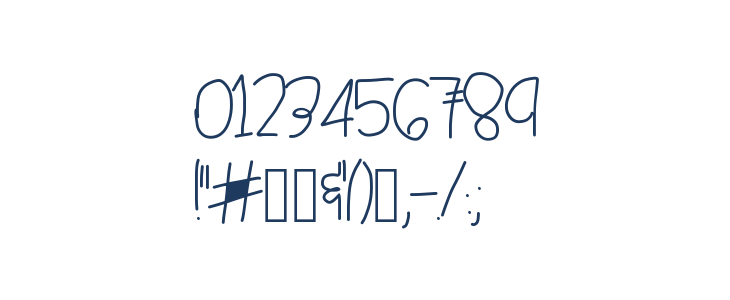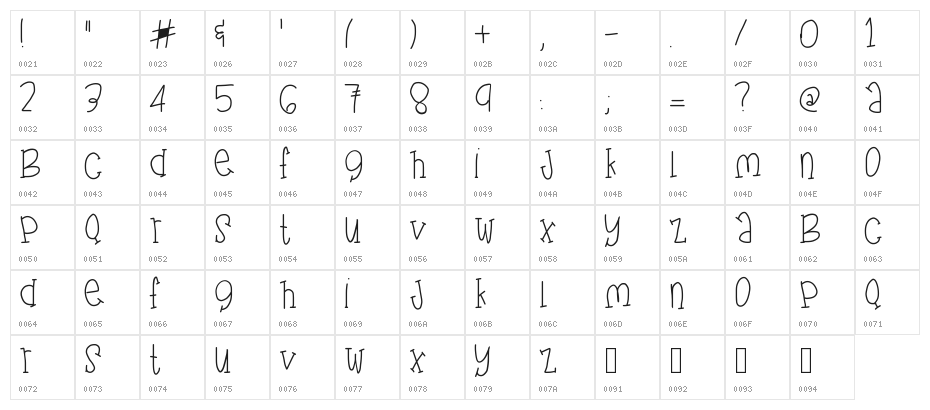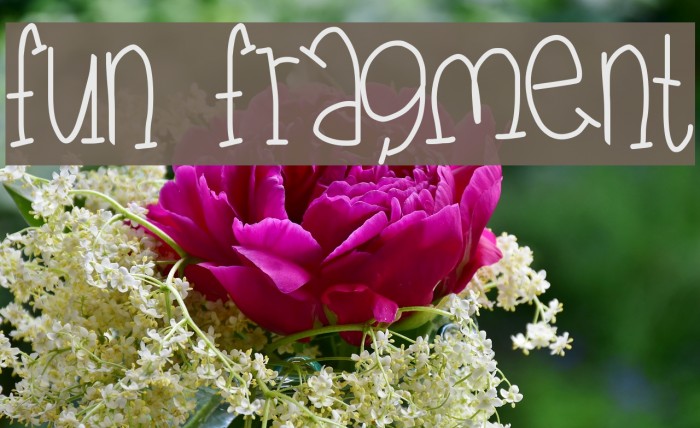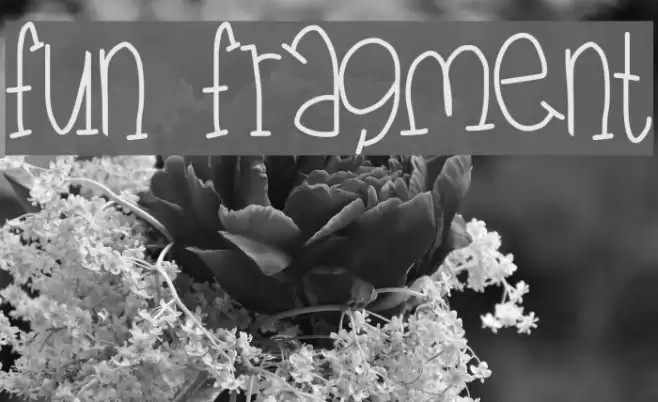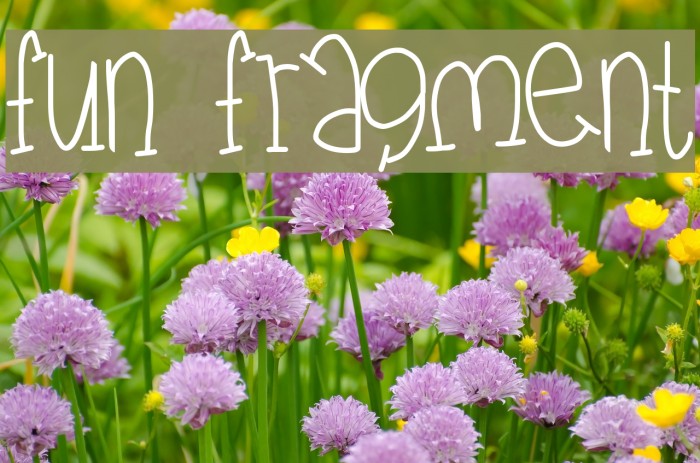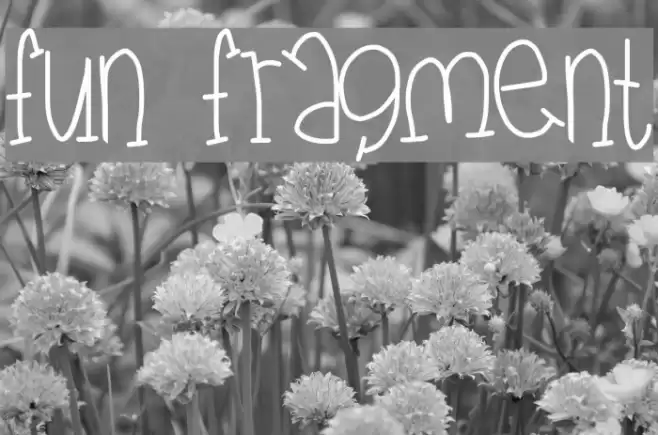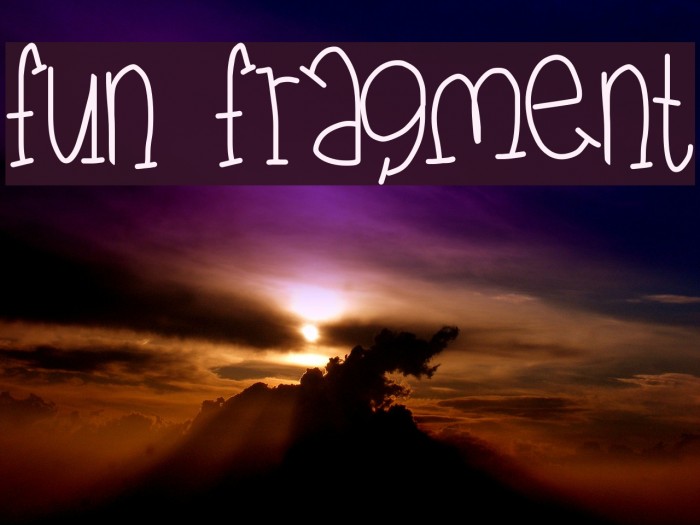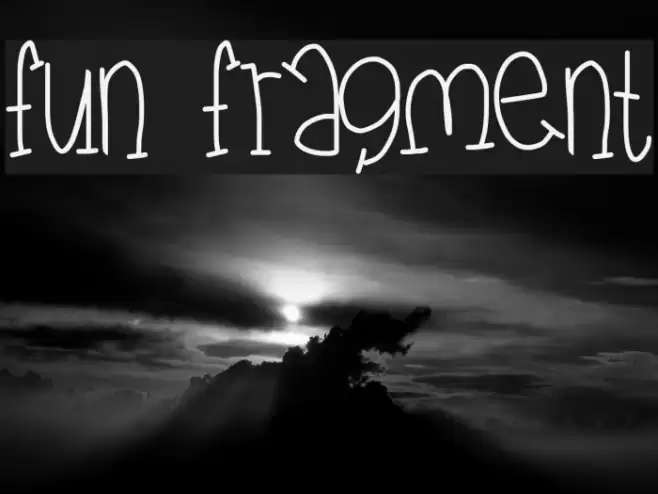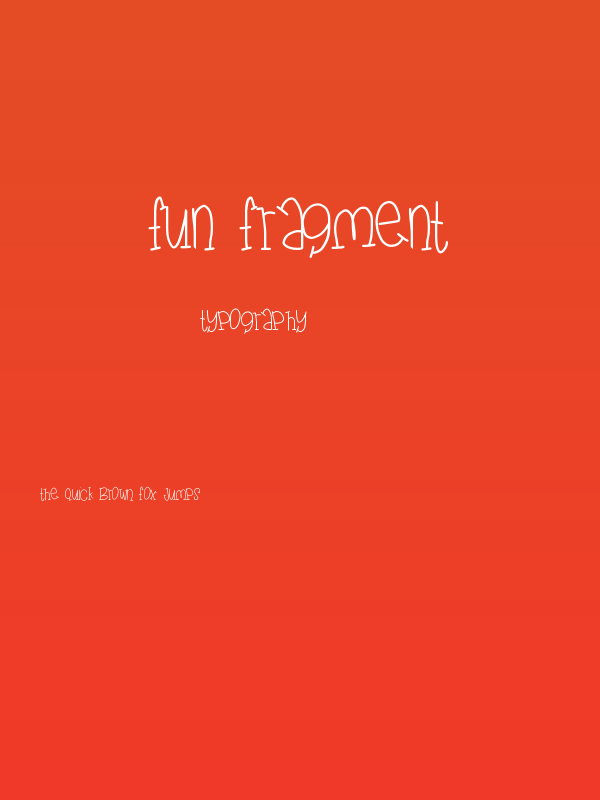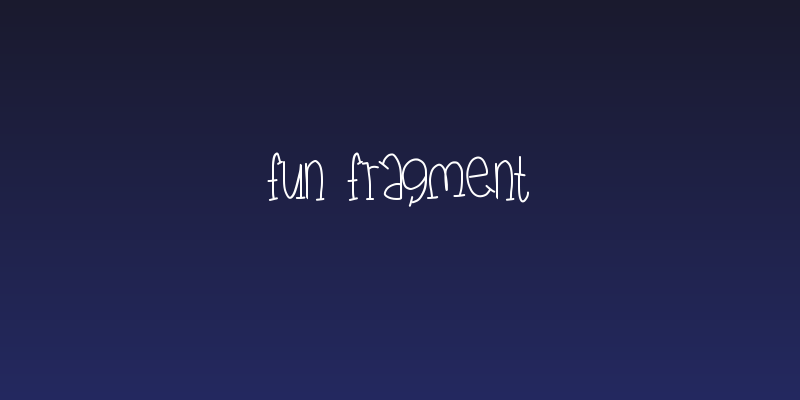
fun fragment Font
fun fragment Description
This playful and whimsical font features a handwritten style with a casual, informal appearance. The characters are slightly irregular, giving it a unique and personal touch. The strokes are consistent in thickness, providing a uniform look across all letters and numbers. The font maintains a friendly and approachable vibe, making it suitable for creative and fun projects. Its legibility is high due to the clear distinction between each character, despite the playful curves and loops. The spacing between characters is normal, ensuring readability while maintaining its quirky charm.
| Proposed Projects | Ideal for children's books, greeting cards, playful branding, and creative social media graphics. |